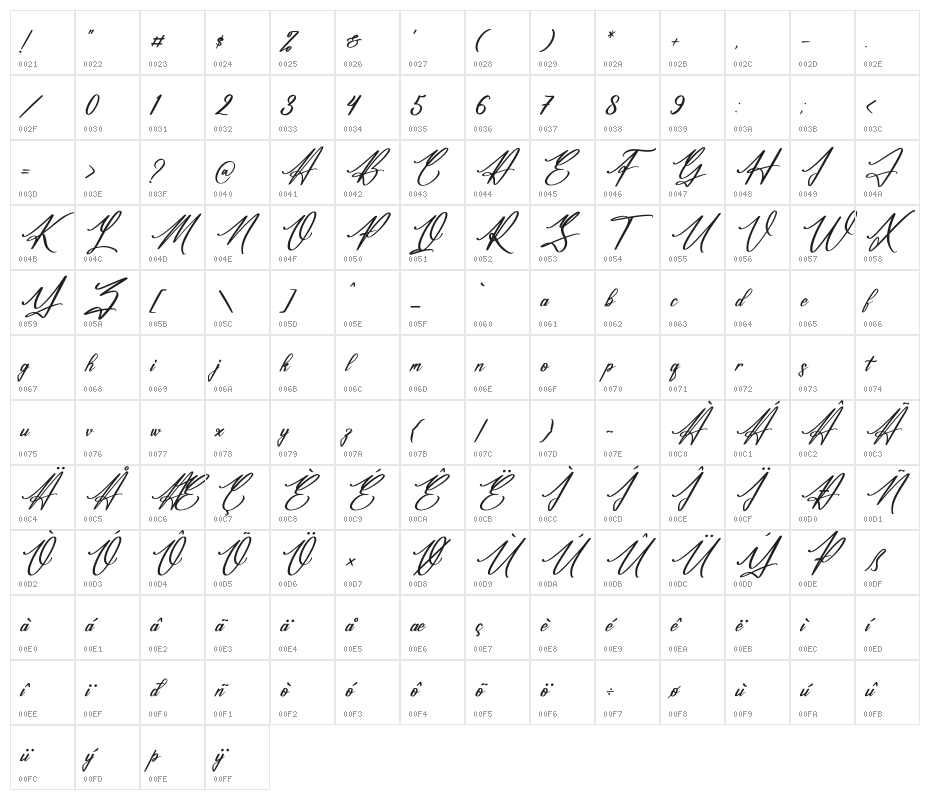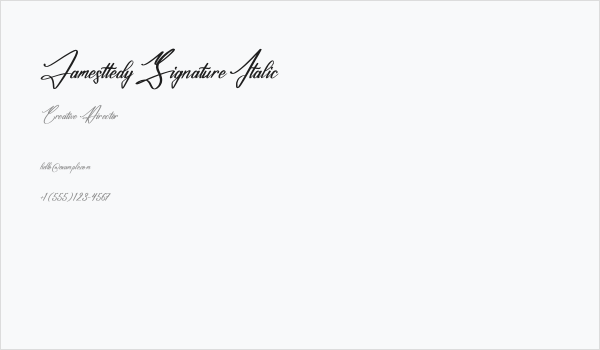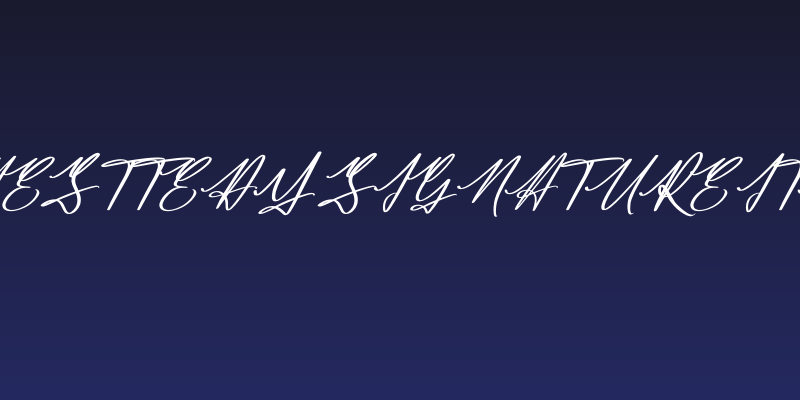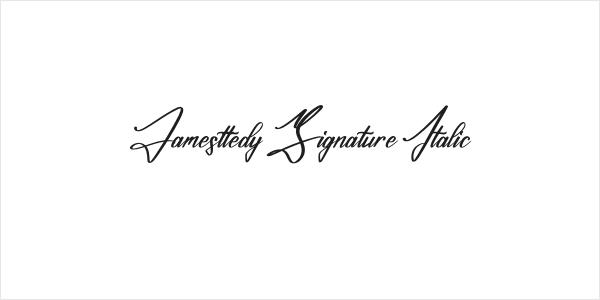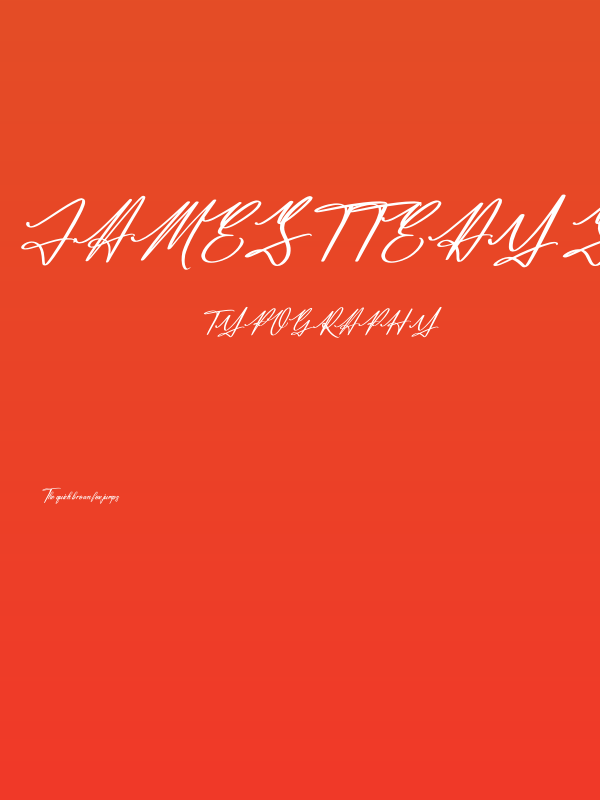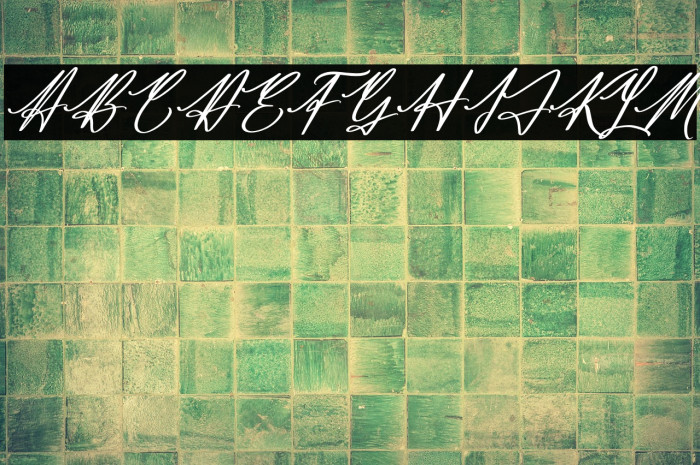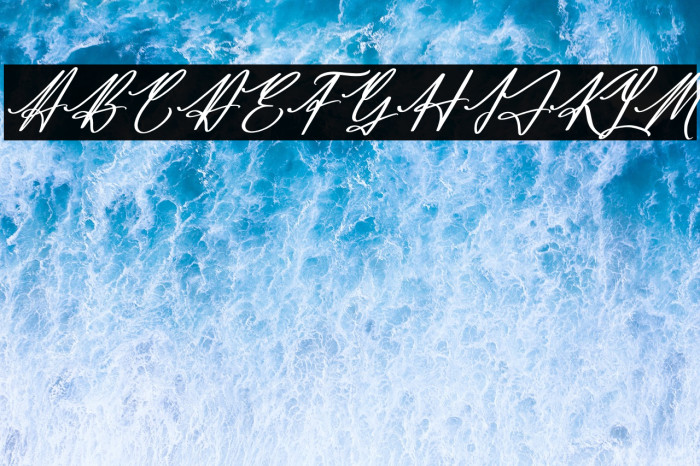
Jamesttedy Signature Italic Font
Jamesttedy Signature Italic Description
This elegant script font features a fluid, cursive style that mimics the natural flow of handwriting. The letters are connected, creating a seamless and sophisticated look. The uppercase characters are ornate, with flourishes that add a touch of luxury and refinement. The lowercase letters maintain a consistent style, with smooth curves and a slight slant that enhances the handwritten appearance. The numerals are clear and legible, maintaining the same flowing style as the letters. Special characters are included, each designed to complement the overall aesthetic. This font is perfect for projects that require a personal, elegant touch.
| Proposed Projects | Ideal for wedding invitations, personal branding, elegant logos, and greeting cards. |